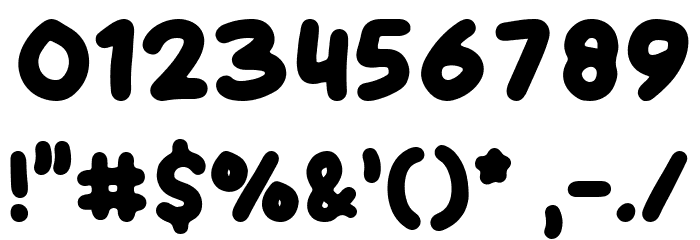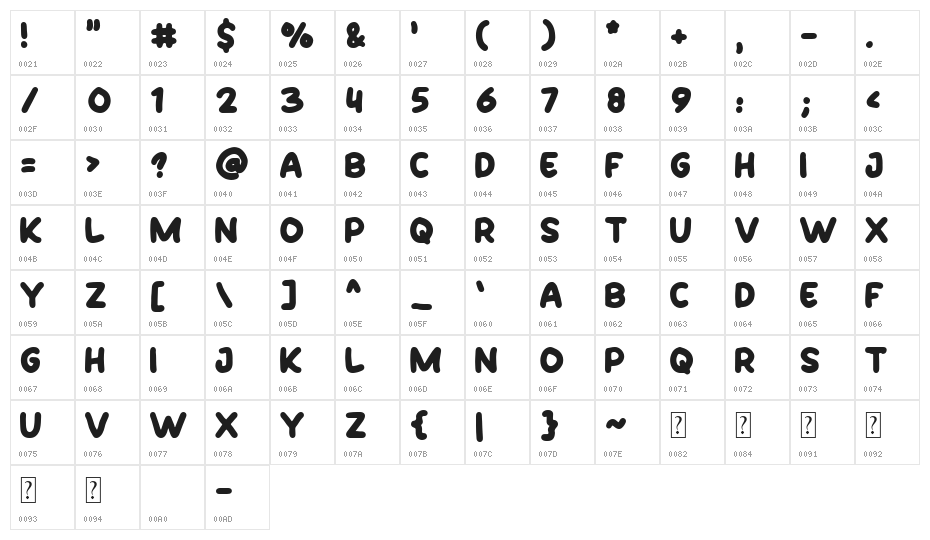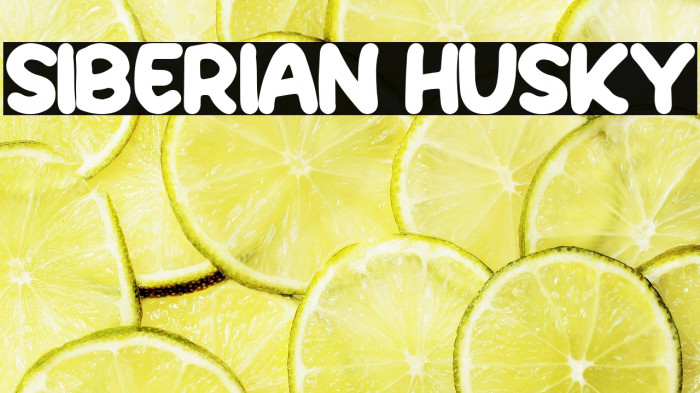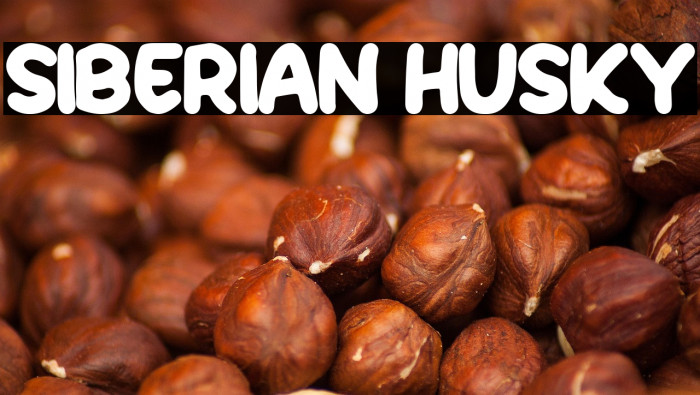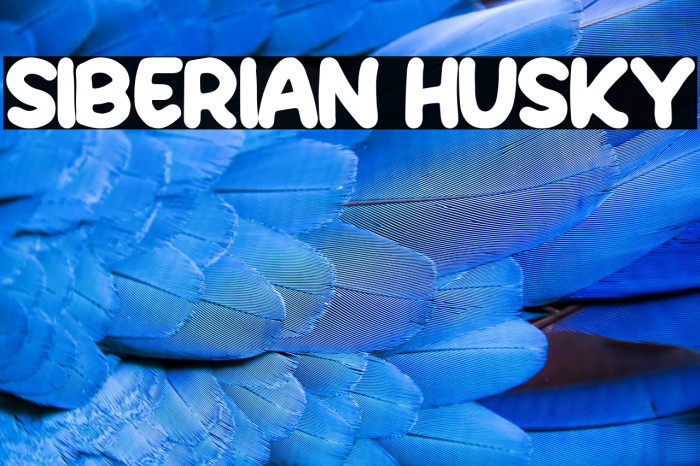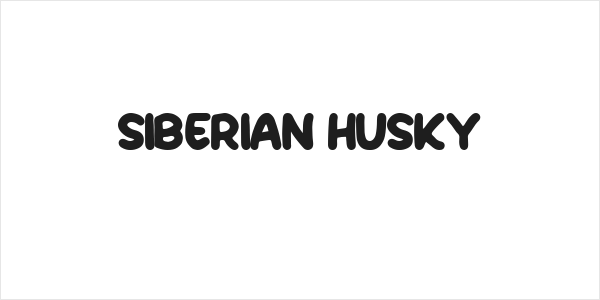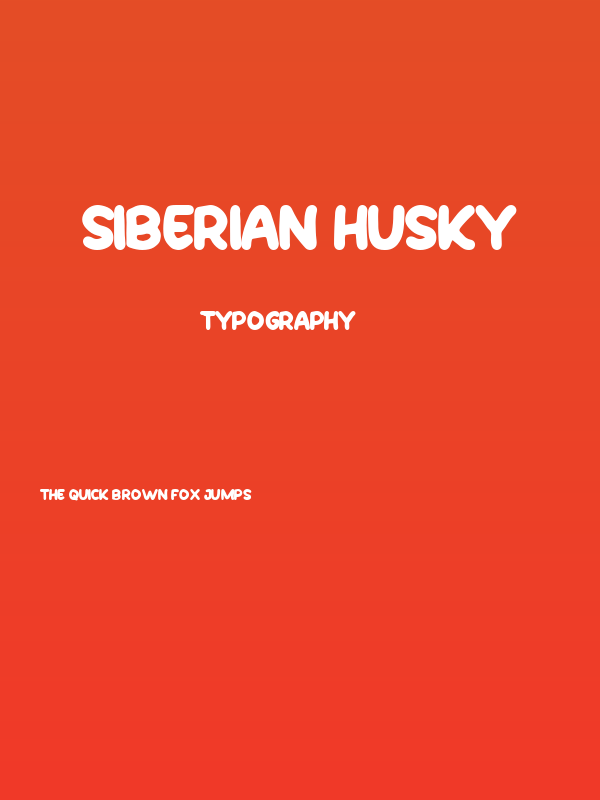
Siberian Husky Font
Siberian Husky Description
This font features a bold and playful style with rounded edges and a slightly irregular form, giving it a hand-drawn appearance. The characters are thick and substantial, creating a strong visual impact. The uppercase and lowercase letters maintain a consistent style, with a uniform stroke width that adds to its boldness. The numbers and special characters follow the same playful and robust design, making them easily legible. This font's unique style is both eye-catching and approachable, suitable for a variety of creative applications.
| Proposed Projects | Ideal for children's books, playful branding, posters, and creative projects that require a fun and approachable aesthetic. |